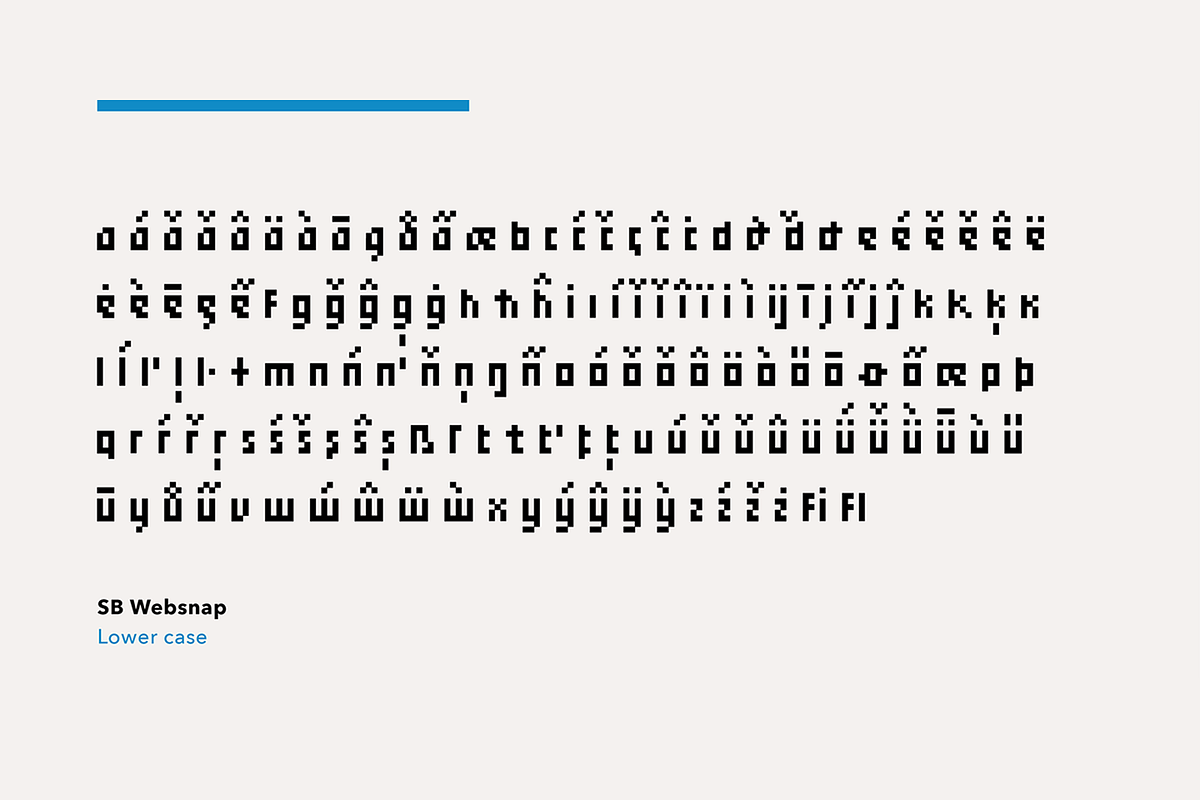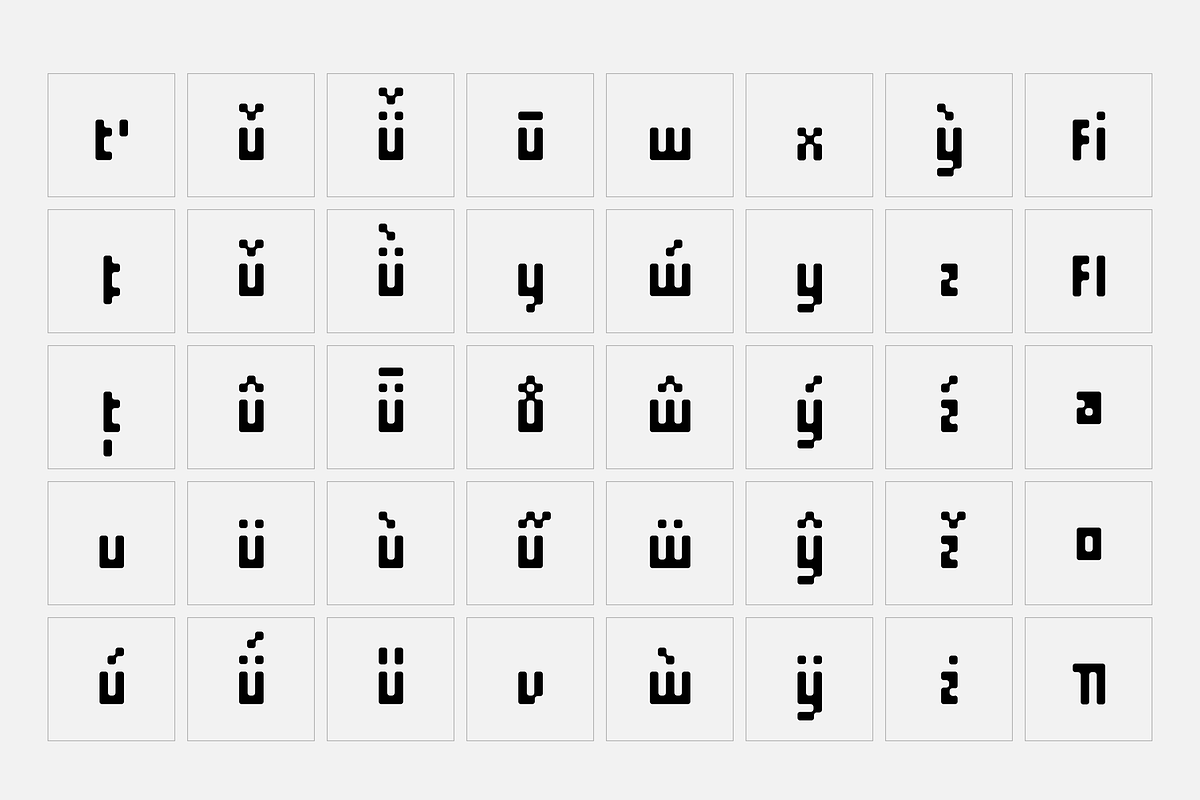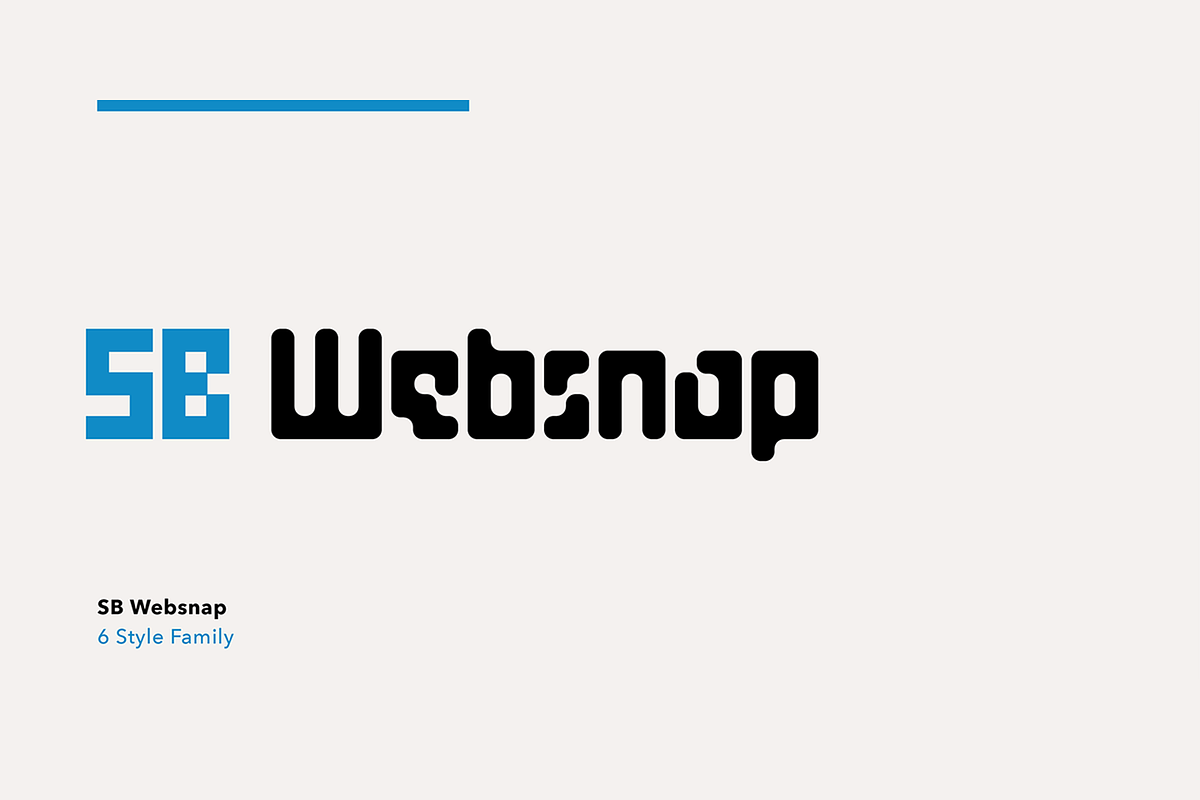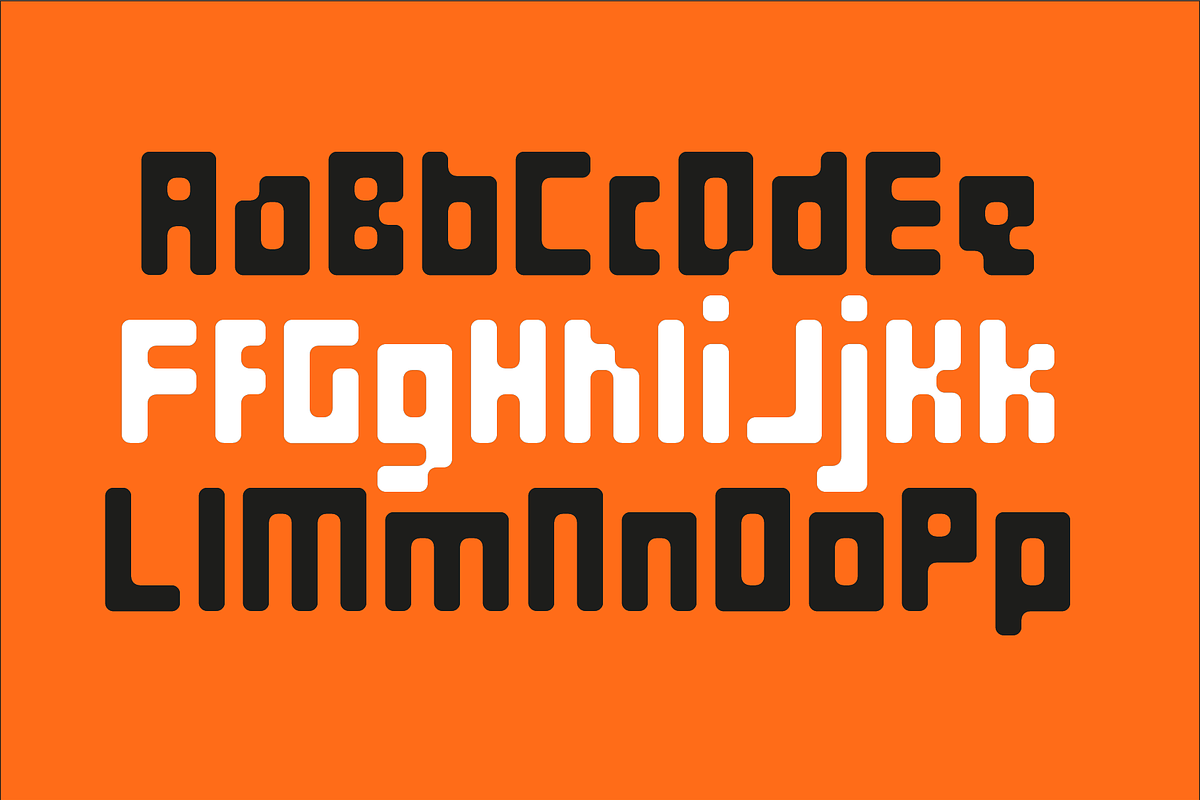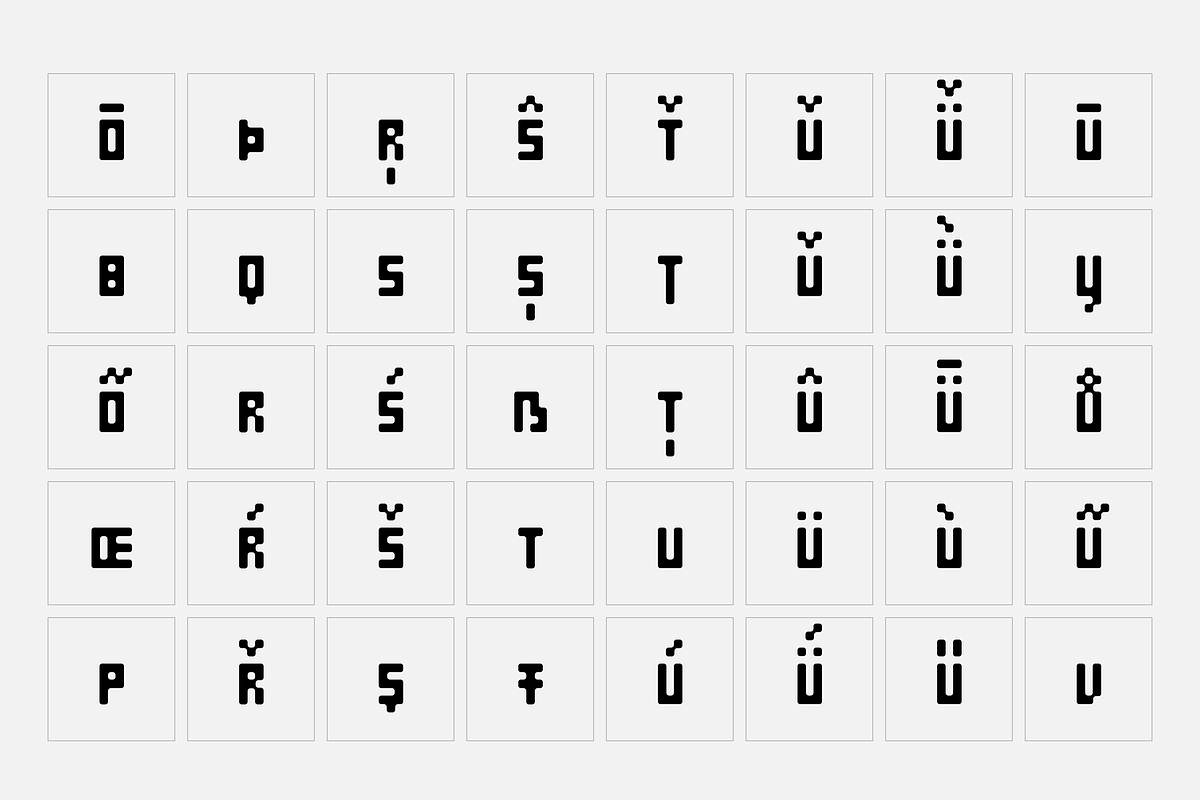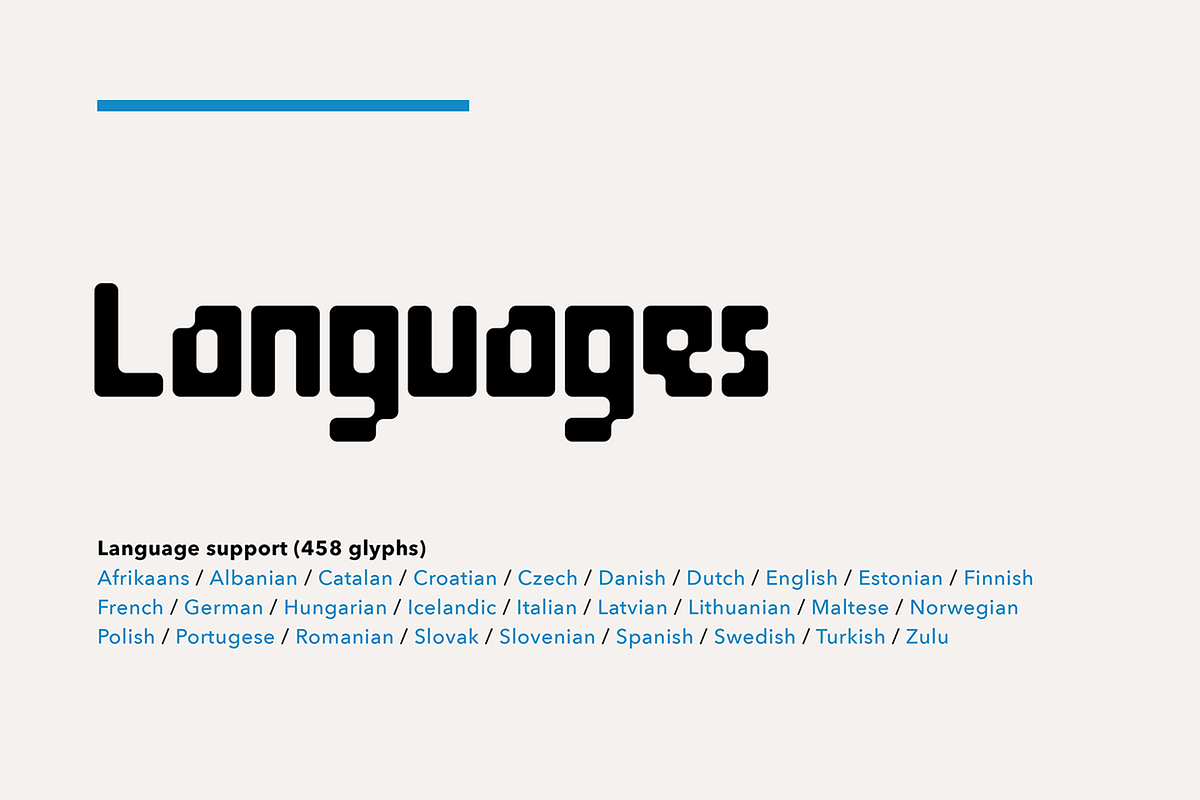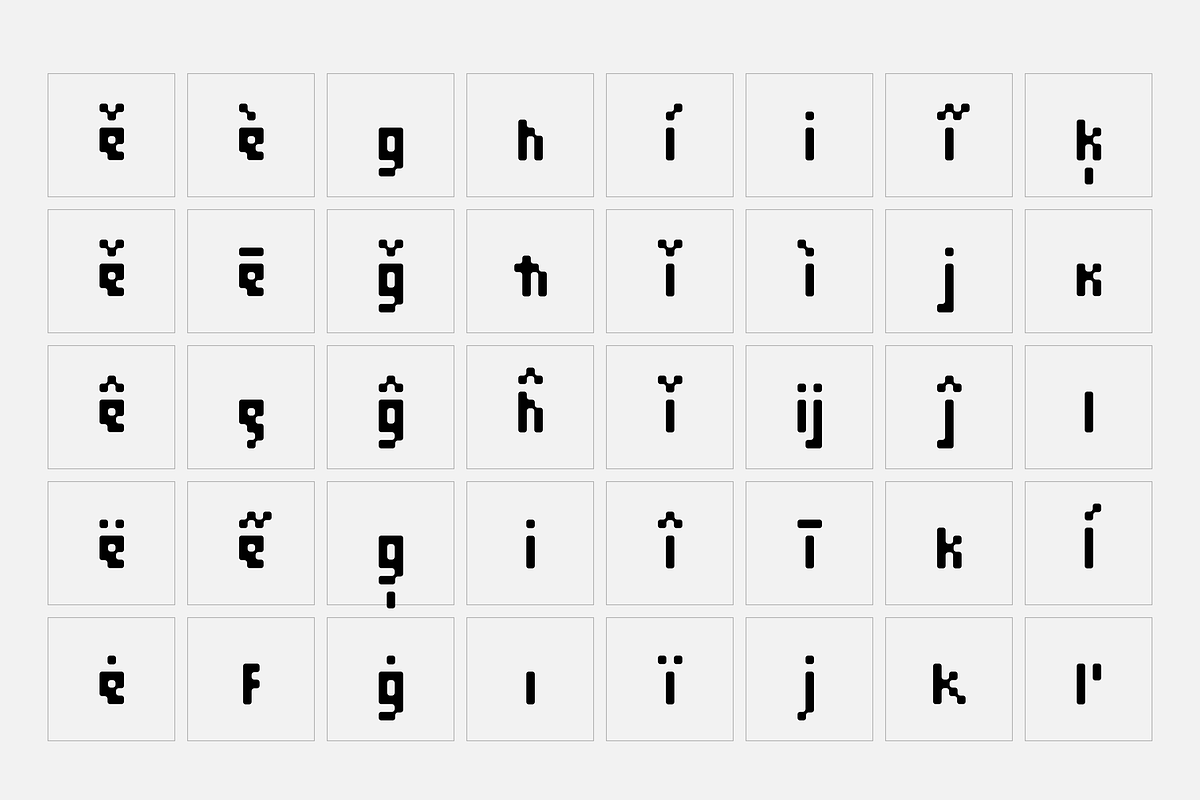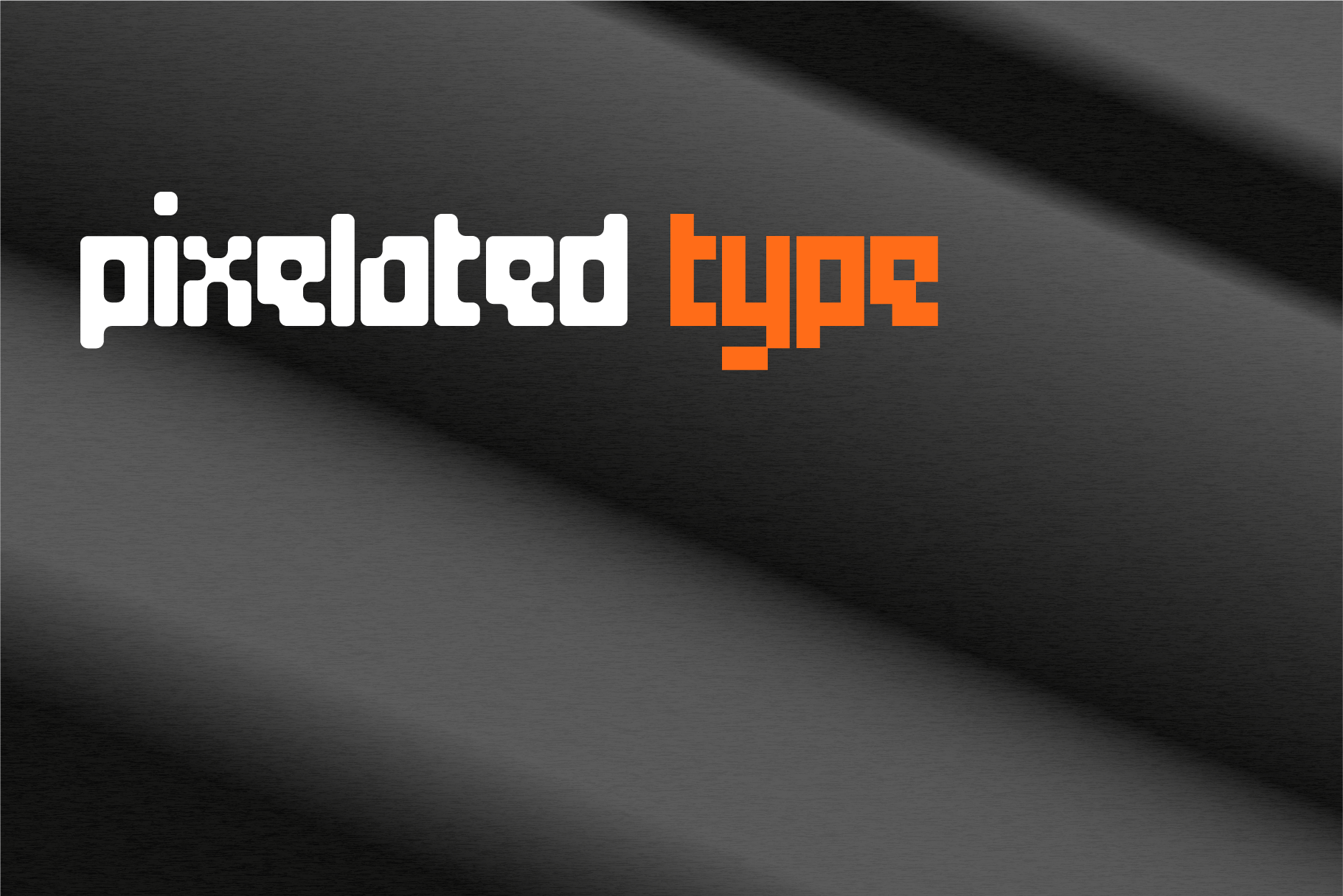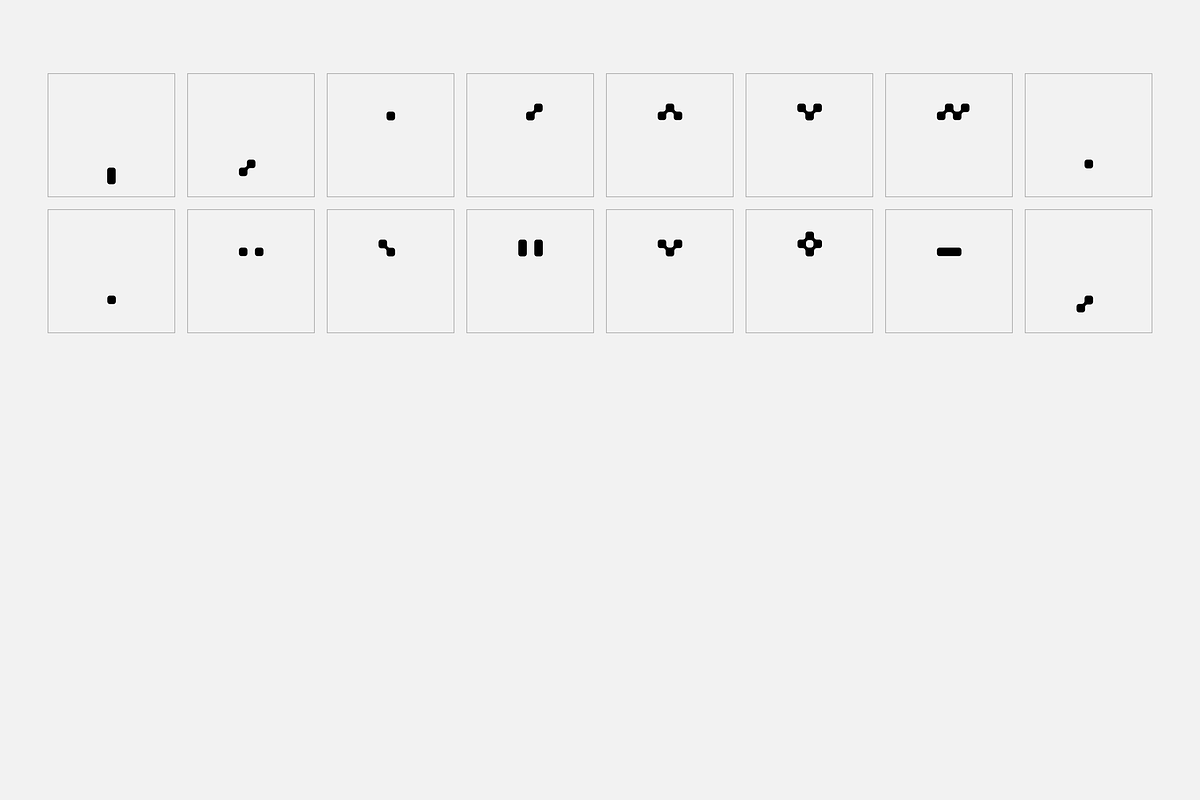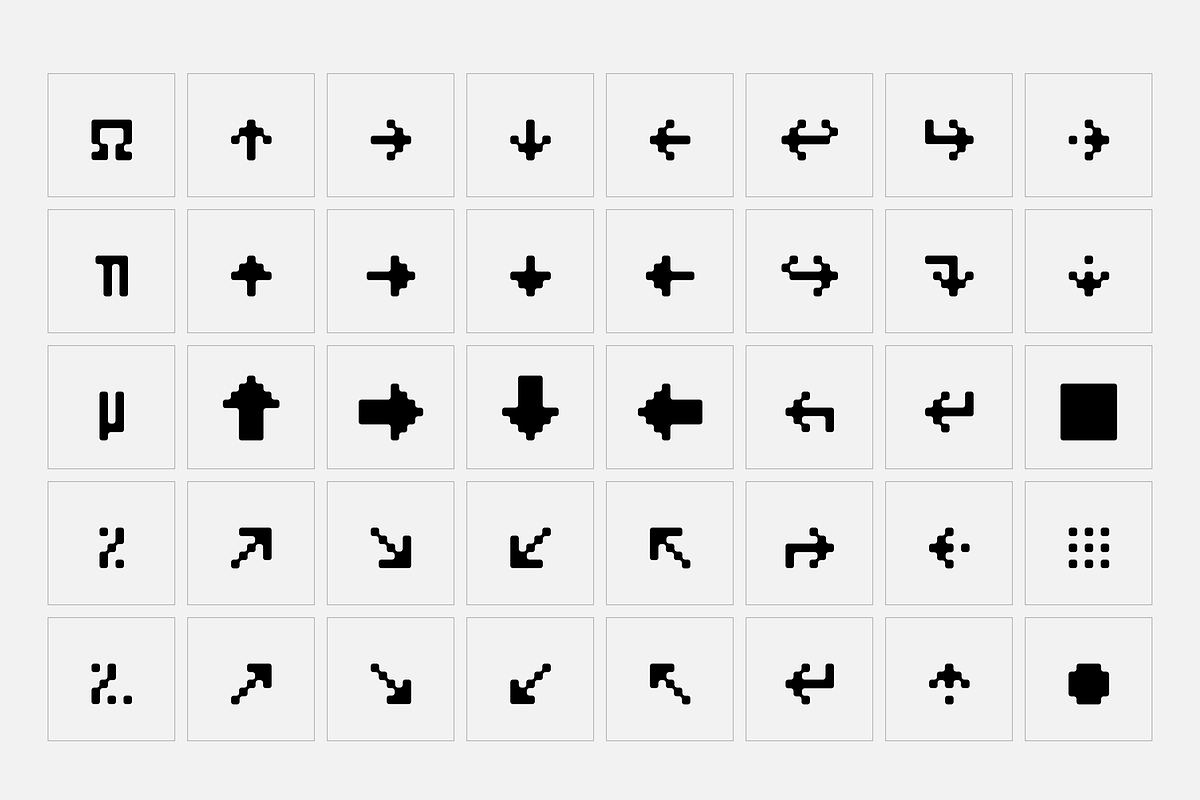
Websnap - Pixel Font
- 6x OpenType fonts: 1x Regular, 3x Rounded, 2x Rounded Disconnect.
- Good legibility at small sizes.
- Additional arrows and fill characters.
- Optimised for use as a pixel font at 10px and multiples of 10px.
- Each font contains 458 glyphs.
- Supports 37 languages.
SB Websnap is a pixel font designed to be legible at very small sizes. The grid used for the design is the minimum possible for a pixel font with good legibility, with a capital height of just 5 pixels.
Although SB Liquid and SB Message both found uses online, SB Websnap was the first SelfBuild Type Foundry typeface designed specifically for screen. It was designed primarily for small text, such as photo credits, legal disclaimers, or on banner adverts where space is limited.
SB Websnap was designed for use in pixel graphics and as a Flash compatible pixelfont, both of which were popular as designers experimented with ways to improve the way the web looked and functioned. Later, rounded versions of the original pixelfont were added, opening up it to use as a headline typeface for today’s high-DPI screens.